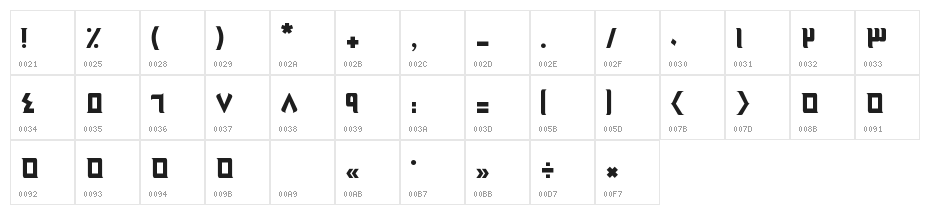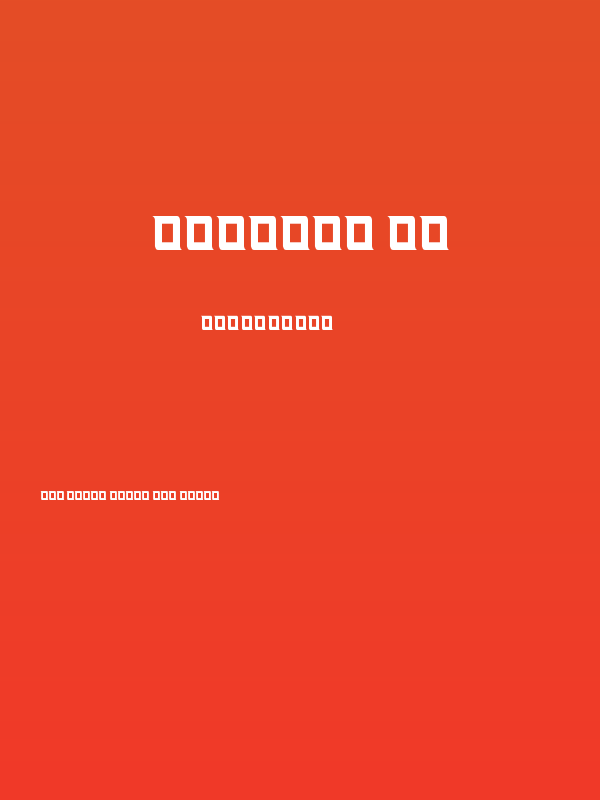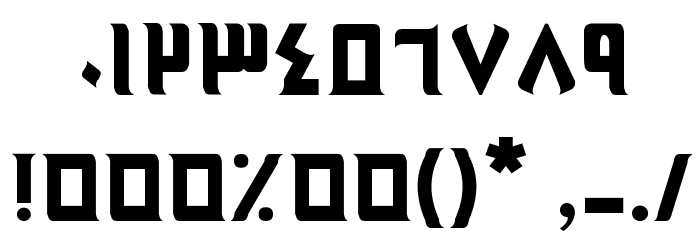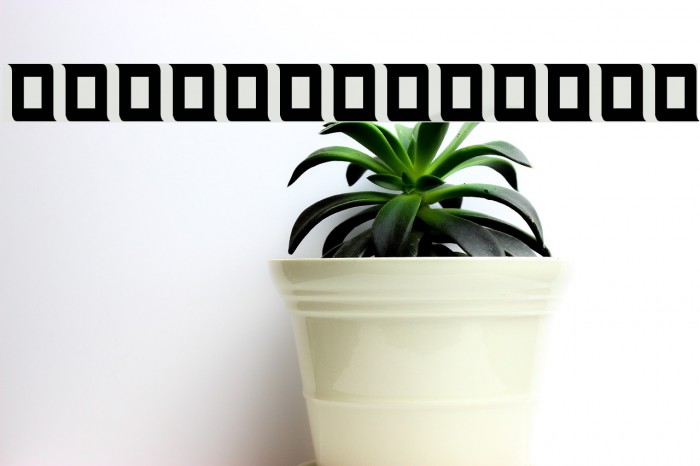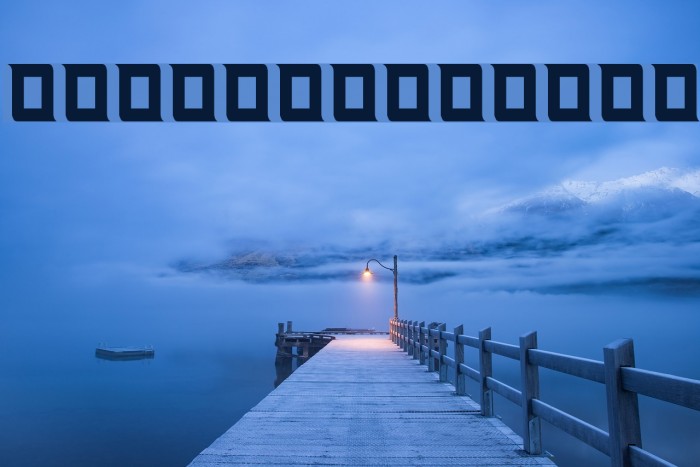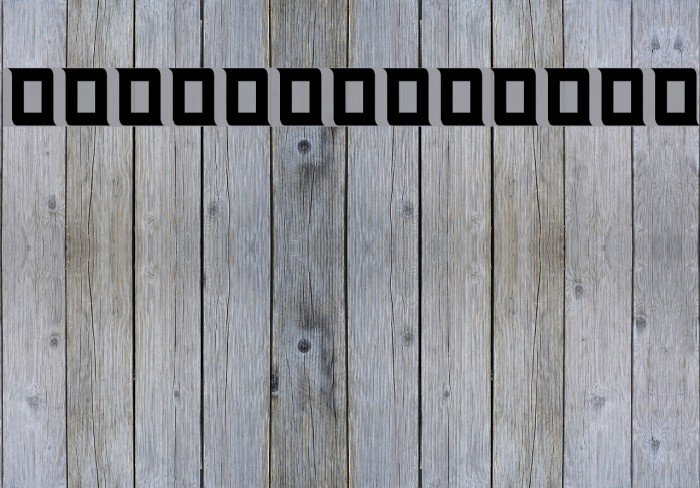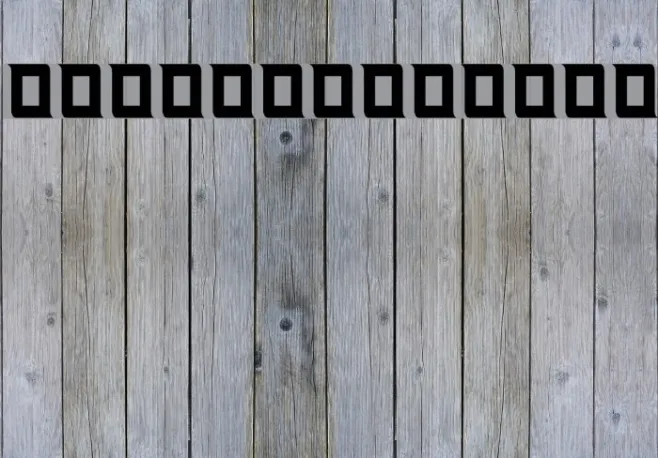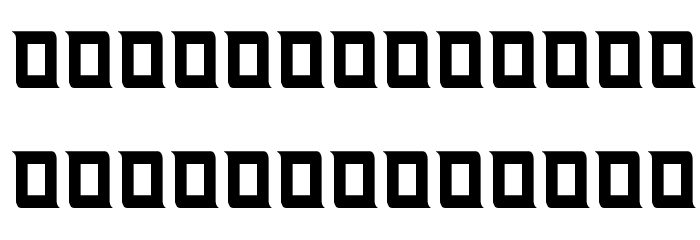
Soltaan II Font
Soltaan II Description
This font features a bold and striking design with a distinctly modern and geometric aesthetic. The characters are crafted with sharp angles and a consistent thickness throughout, giving it a strong and impactful presence. The uppercase and lowercase letters maintain a uniform style, while the numerals and special characters complement the overall design. The font's clean lines and structured form make it suitable for various applications where a contemporary and assertive look is desired.
| Proposed Projects | Ideal for branding, posters, headlines, and digital media where a strong visual impact is needed. |